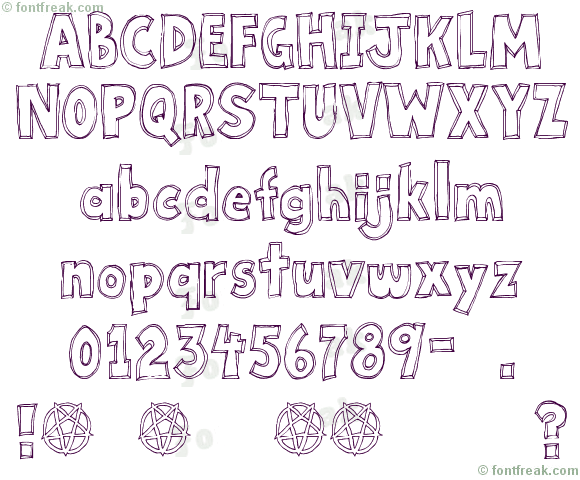
Key Tab Metal
The Key Tab Metal font, designed by Michael Tension, is a distinctive display typeface that embodies a playful yet industrial aesthetic. As a decorative font, it features a unique blend of bold, uneven strokes that evoke a hand-crafted feel, while the metallic undertones lend it an urban edge. The font’s irregular letterforms create a dynamic visual rhythm, making it stand out in any design context. Its medium to heavy stroke weight ensures high visibility and impact, while the moderate spacing between characters allows for easy readability.
This versatile font is ideal for a variety of creative projects. Its unique character makes it an excellent choice for eye-catching movie posters, where it can convey a sense of adventure or excitement. Additionally, the Key Tab Metal font works beautifully for restaurant menus, particularly for establishments that want to project a modern or edgy vibe. Graphic designers may find it suitable for branding materials, giving logos a distinctive look that captures attention. Content creators can also utilize this font for social media graphics or promotional materials, ensuring their content stands out in a crowded digital space.
Targeted towards graphic designers, small business owners, and content creators, the Key Tab Metal font free download offers a fantastic opportunity to enhance visual communication. Its playful yet robust design is perfect for those looking to infuse their projects with personality and a touch of originality. In a world saturated with standard fonts, Key Tab Metal stands out due to its unique visual characteristics and versatility. It invites creativity and encourages users to think outside the box, making it an essential addition to any designer’s toolkit.